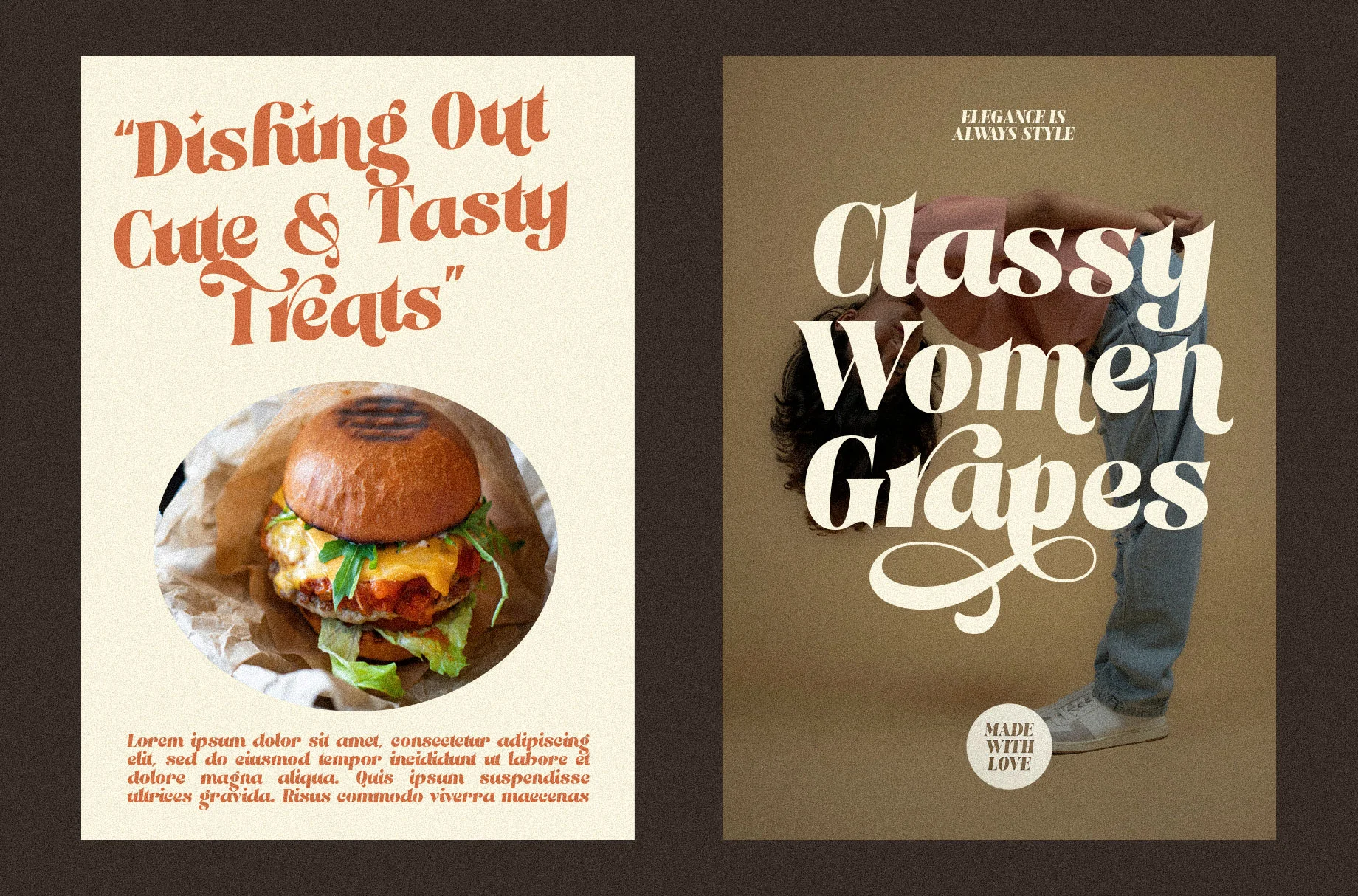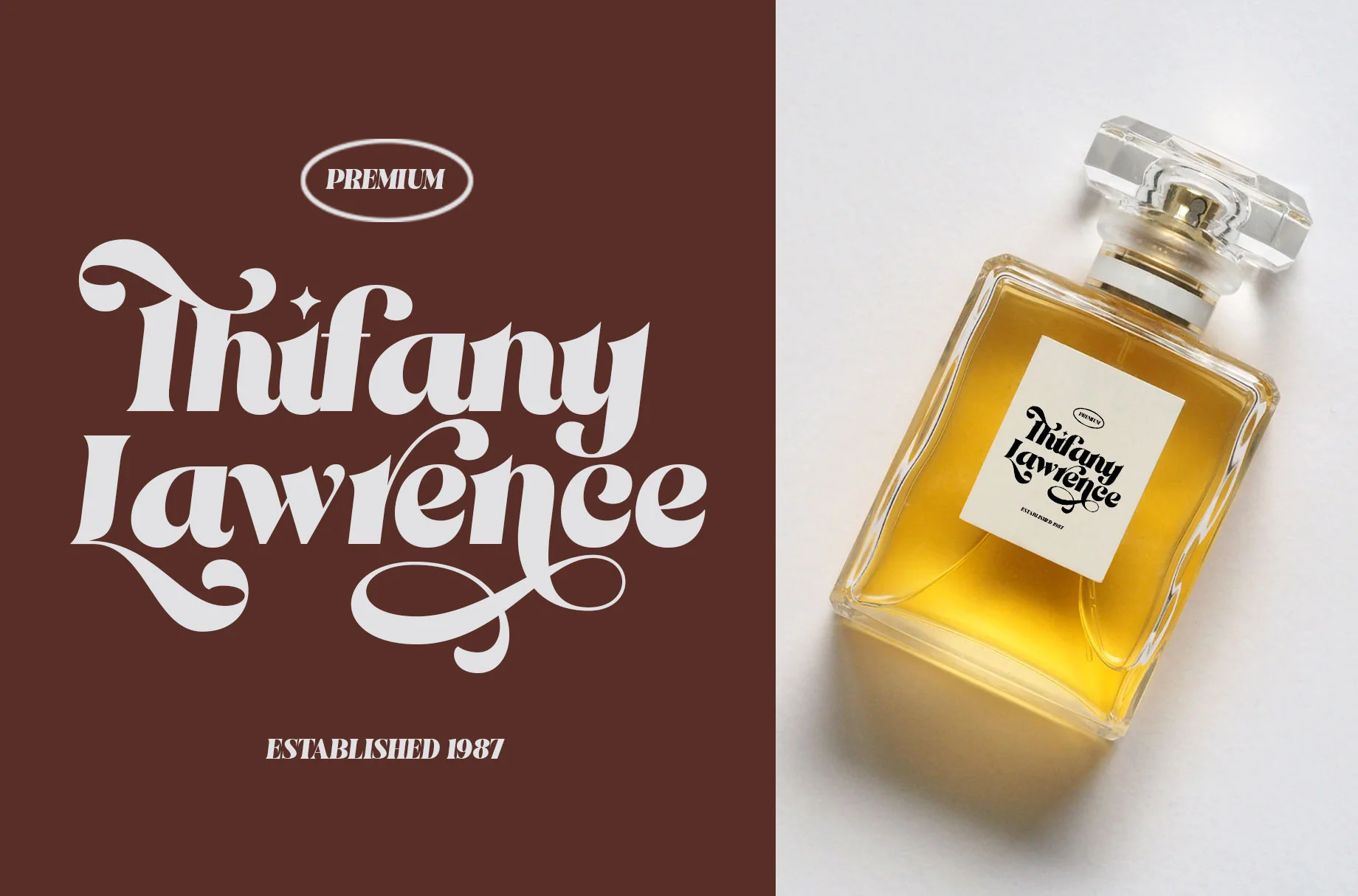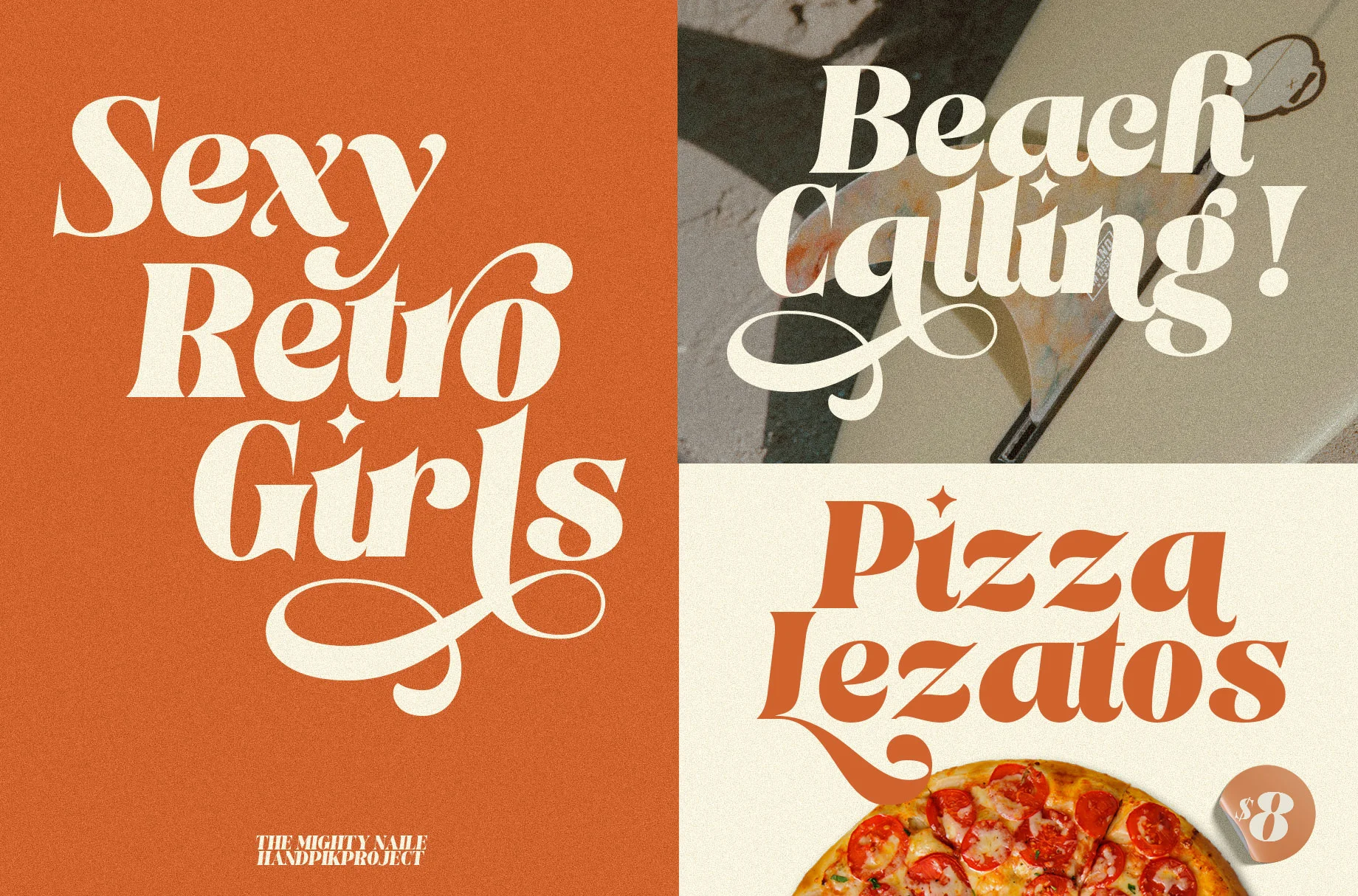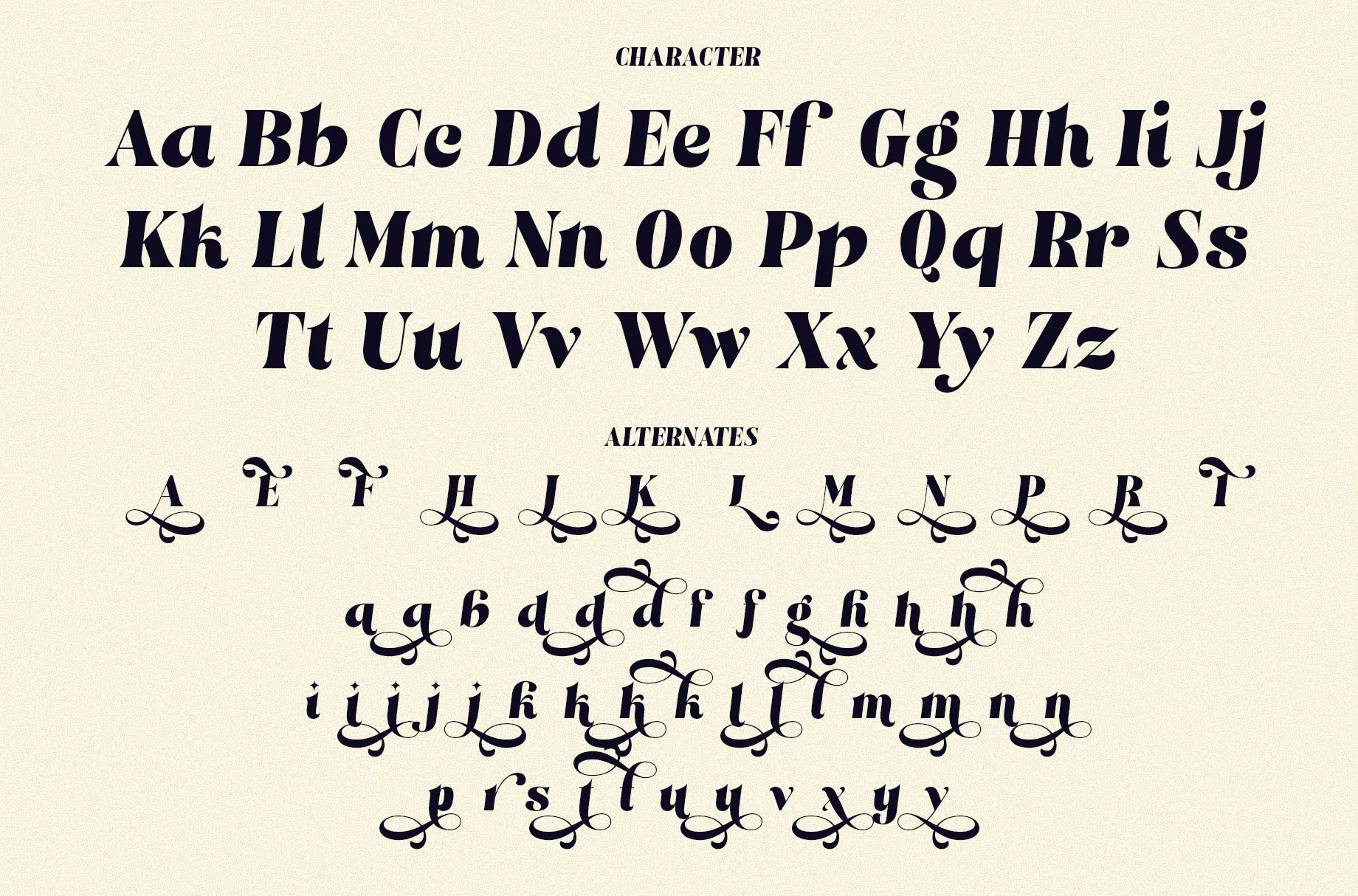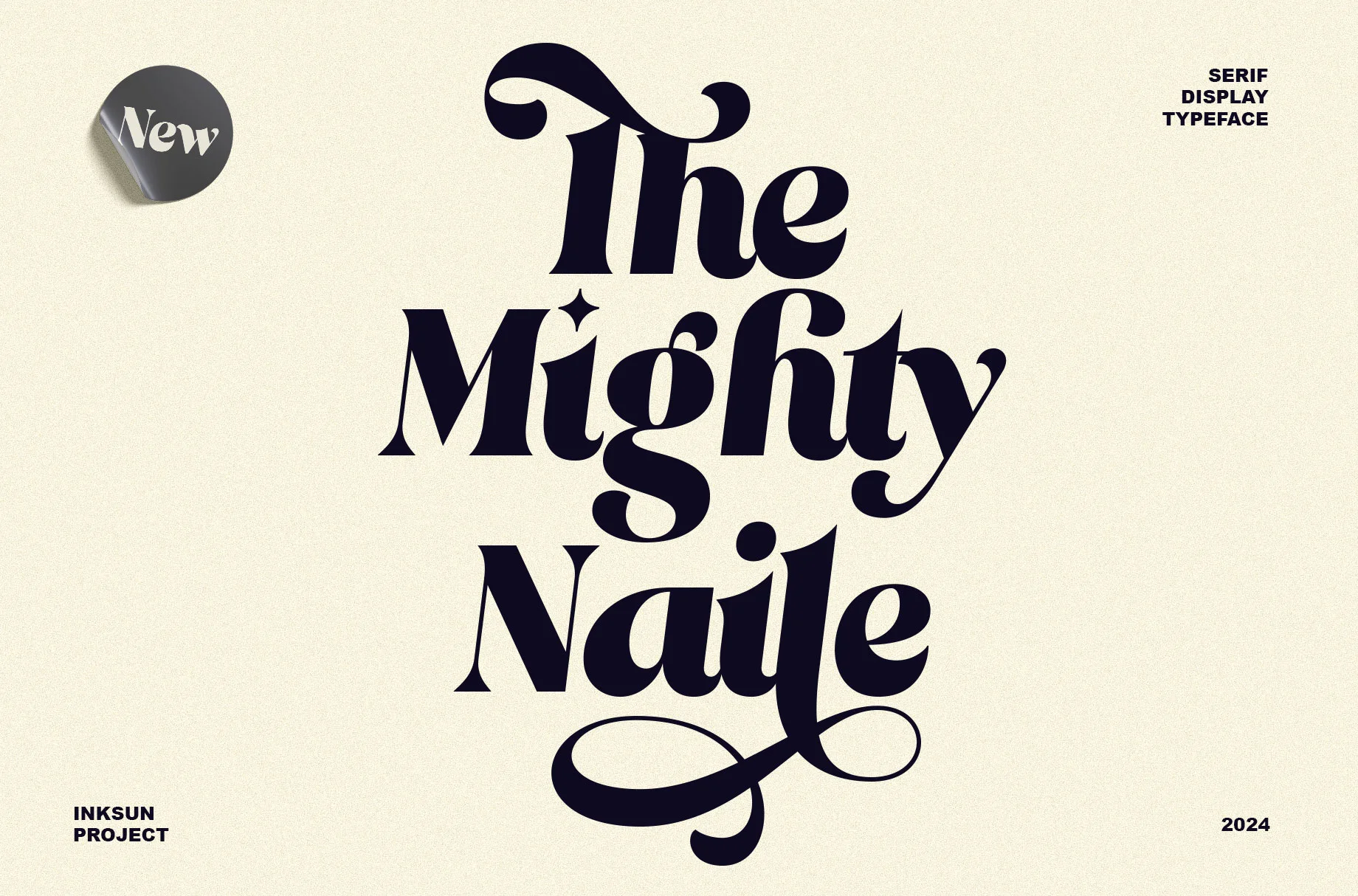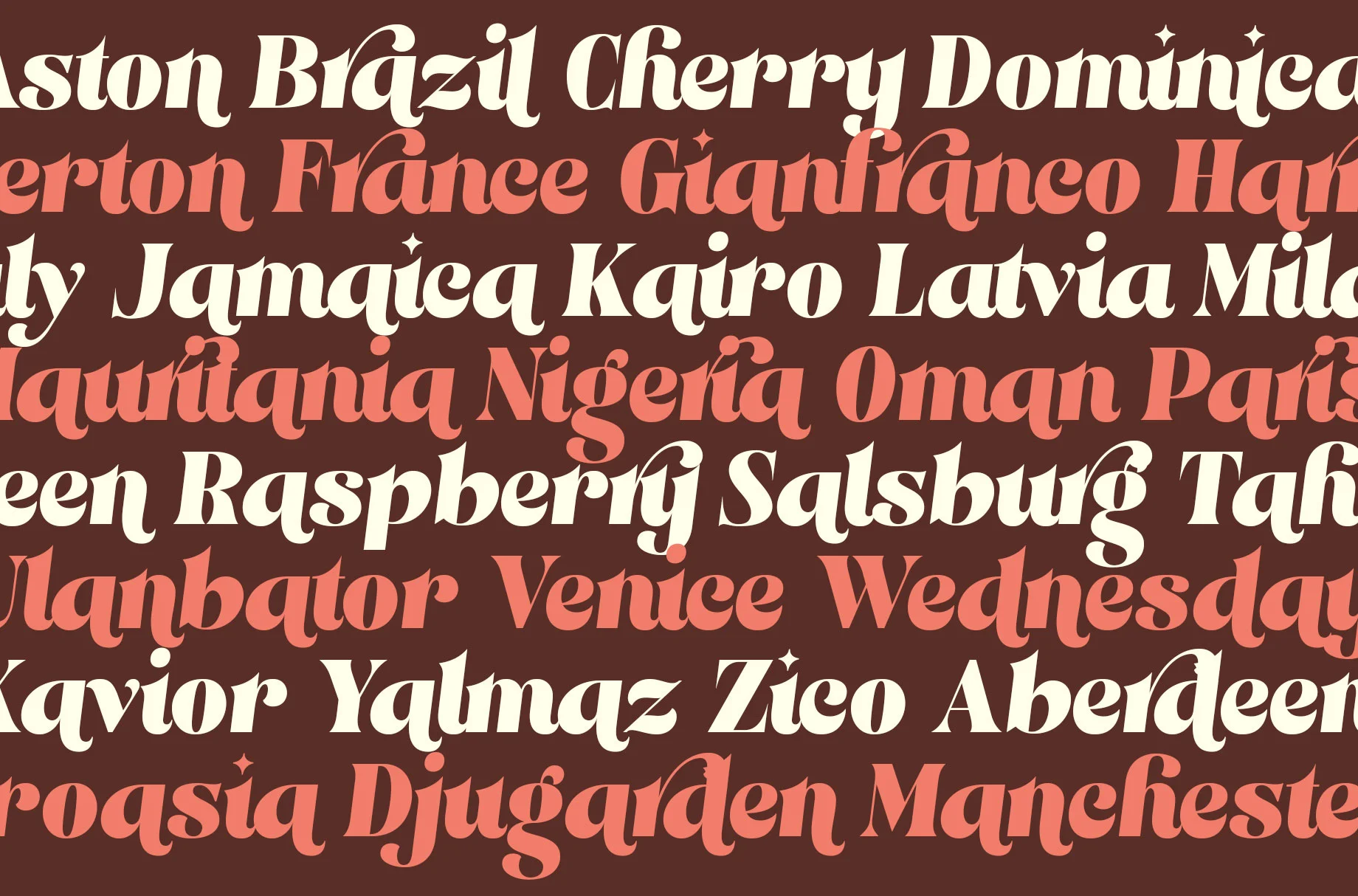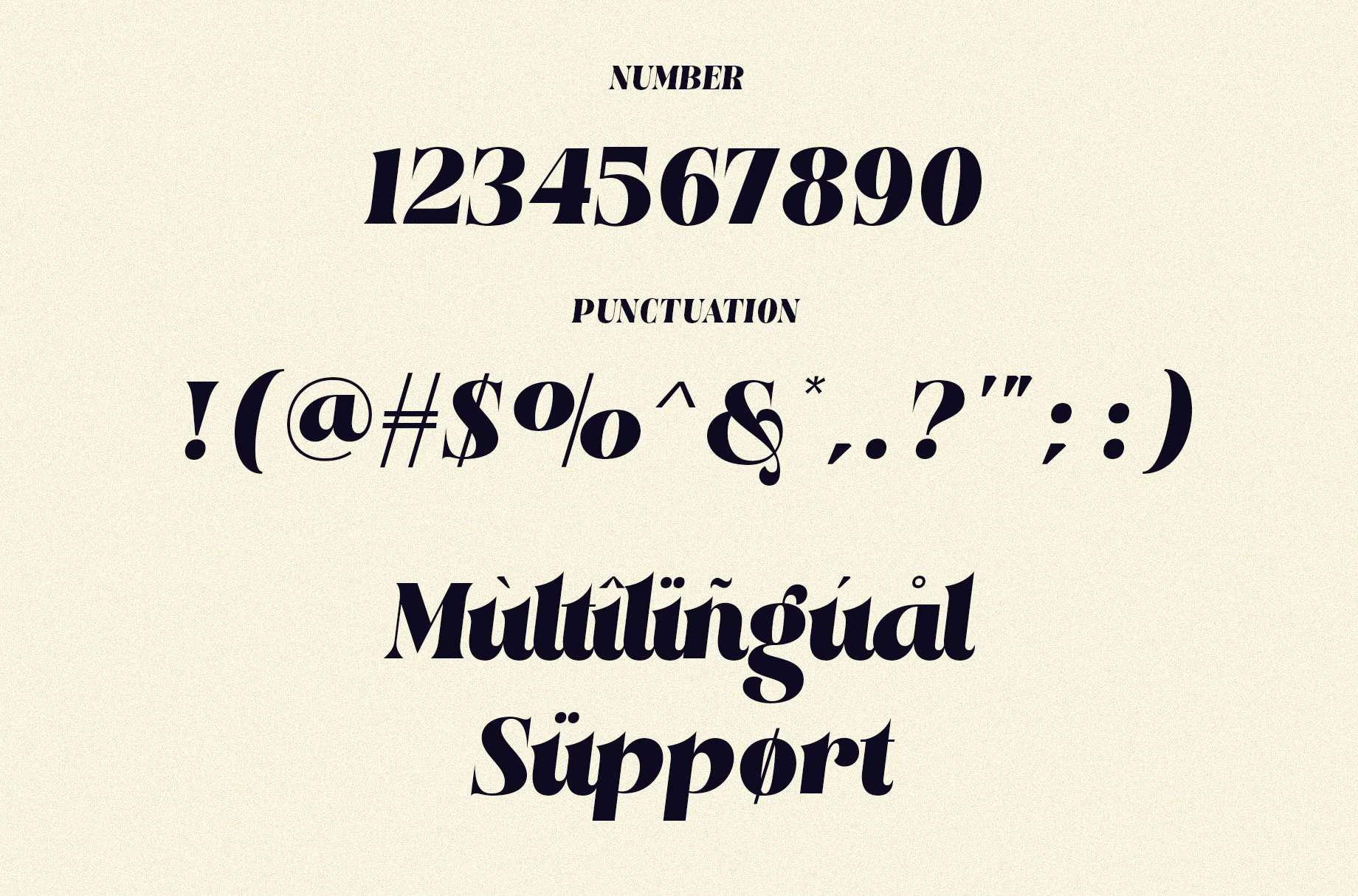
The Mighty Naile
The Mighty Naile will perfect for many project: book, magazines, logo, branding, photography, quotes, blog header, poster, advertisements, etc.